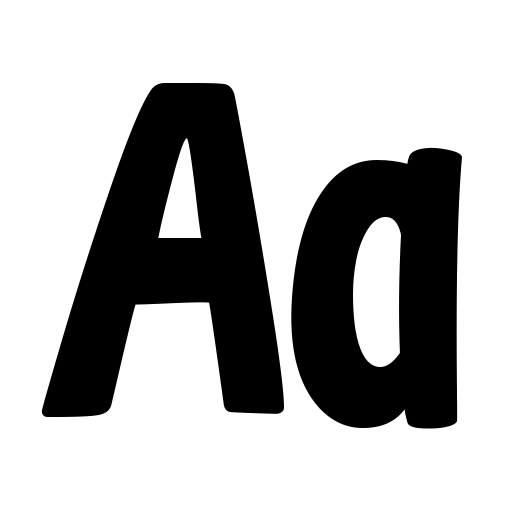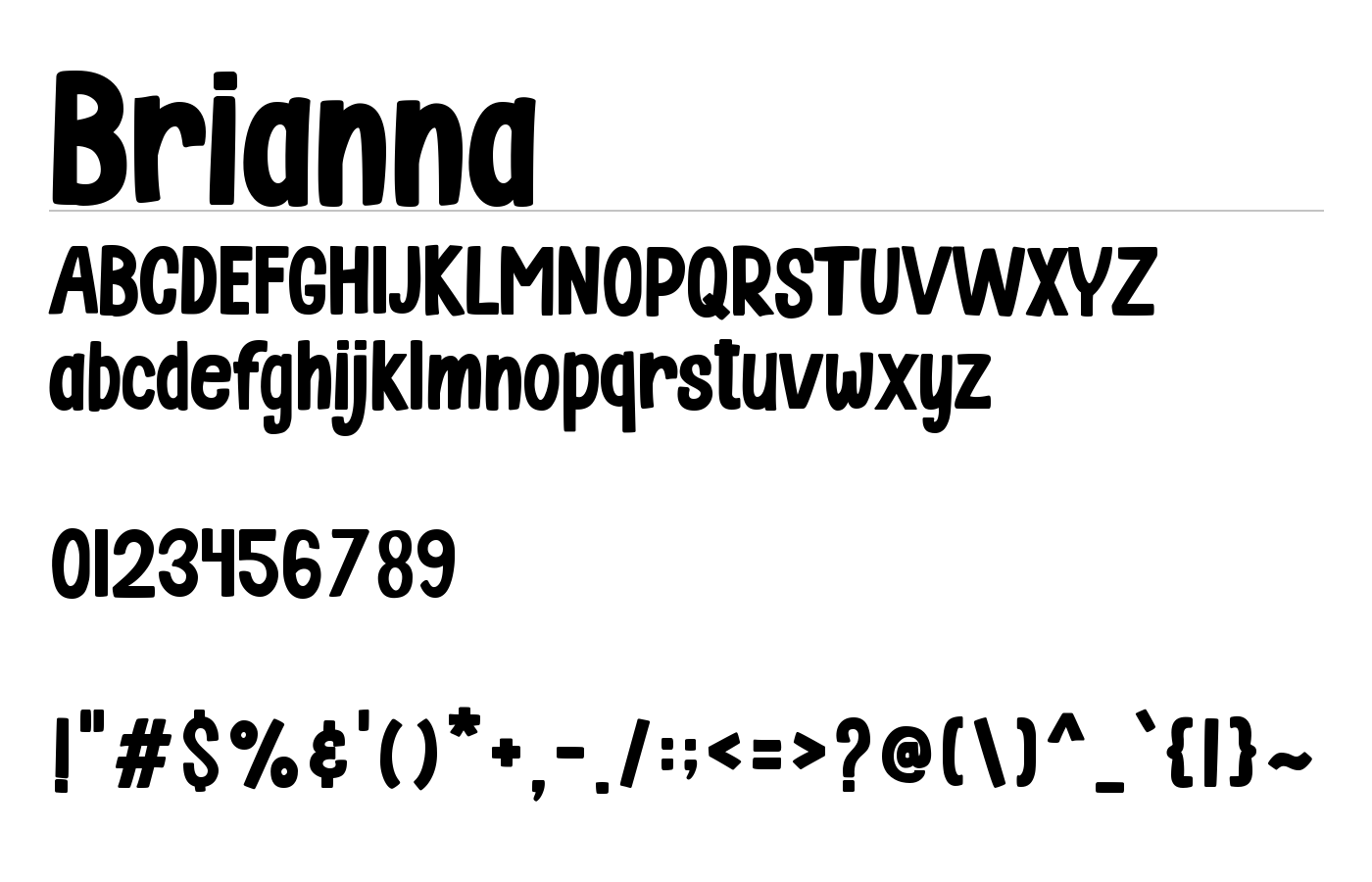
Brianna is a playful and bold sans serif font with a hand-drawn feel, featuring rounded edges and a slightly condensed width that adds charm and approachability. Its tall x-height and uniform stroke weight make it highly readable and perfect for casual, friendly branding or children’s materials. This font works well for headlines, logos, and packaging where a warm, energetic vibe is desired.
Brianna Font
About Brianna Font